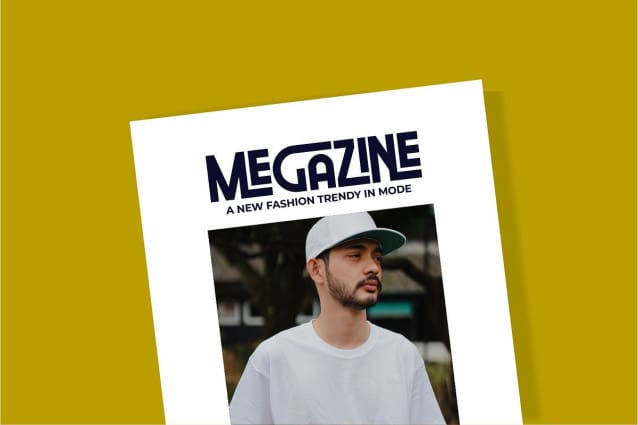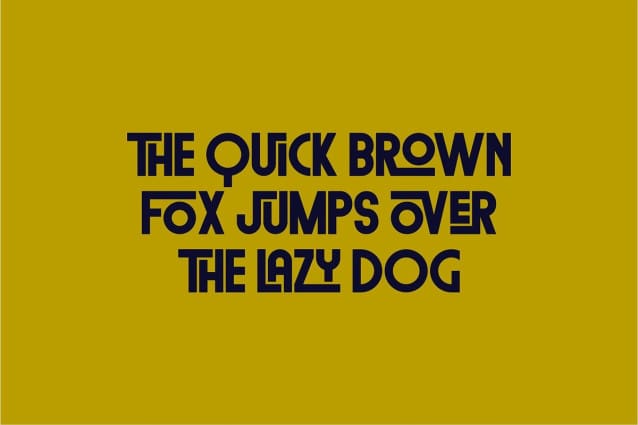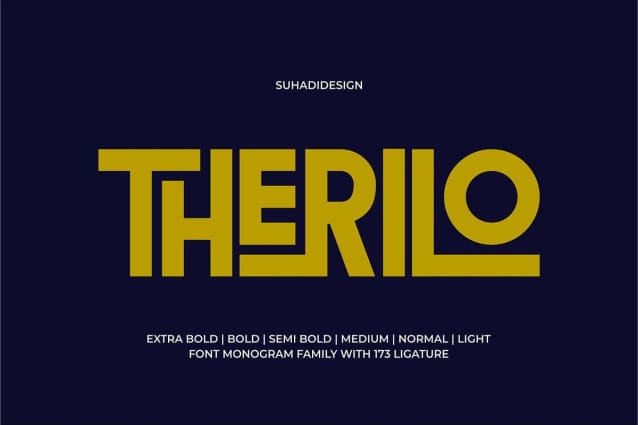
Therilo Font Family
Therilo Font Family – Sans Serif Monogram Font, a minimalist sans serif font that is modern, elegant and cool.
Therilo font is a modern sans serif font with 173 ligatures, presented in a modern style with the hope of becoming a market favorite. We keep this font looking elegant, classy, ​​modern, stylish, up-to-date and easy to use. It is a great choice for logos, labels, fashion, posters, banner, bags, brands, fashion, brand names, brands, quotes and other projects. It is here to take your designs to the next level.